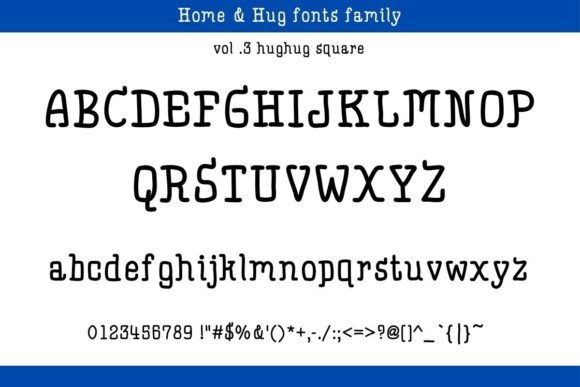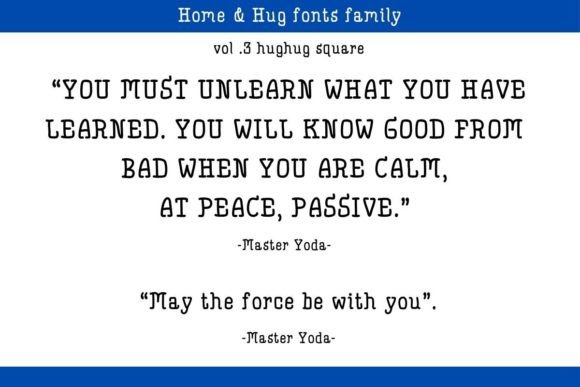
Introduction to Hughug Square Font
Introducing the “Hughug Square” font, an original creation carefully hand-drawn by me.
The “Hughug Square” embodies the strength and structure of a robot – it’s square, rigid, and unyielding Its distinguished shape presents an aesthetic that’s unique and intriguing.
Key Features of Hughug Square Font